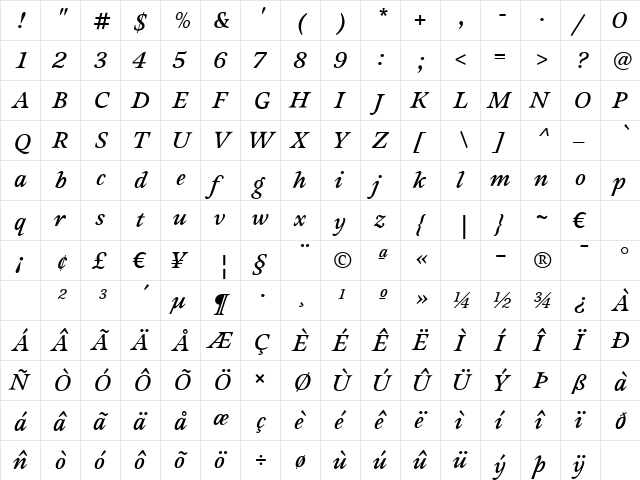
Sovereign-DemiBoldItalic Regular
Design Context for Sovereign-DemiBoldItalic Typeface
Sovereign-DemiBoldItalic takes a measured approach to typography — its balanced proportions and neutral character make it a reliable workhorse for both digital and print work. The slanted form adds forward momentum and visual energy. The heavy weight commands attention and anchors typographic hierarchies.
Pro Tip: Try Sovereign-DemiBoldItalic for annotation and caption copy alongside an upright companion — the contrast in angle creates a dynamic but ordered typographic system.